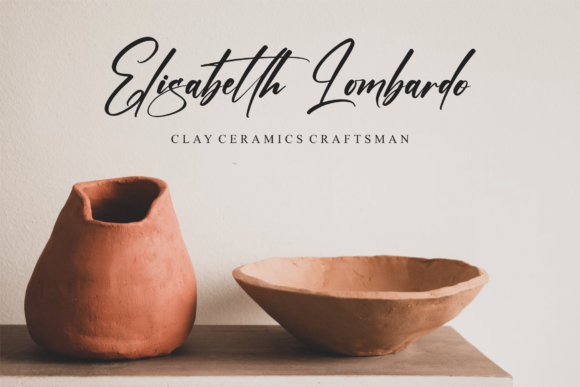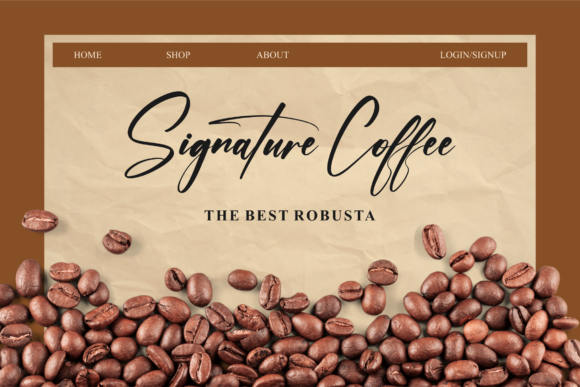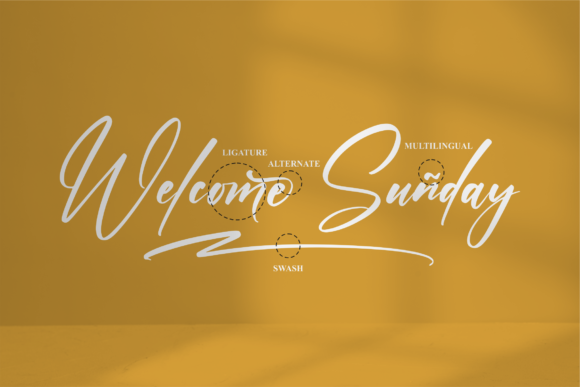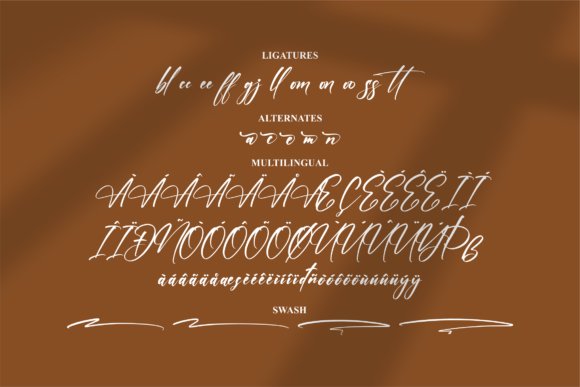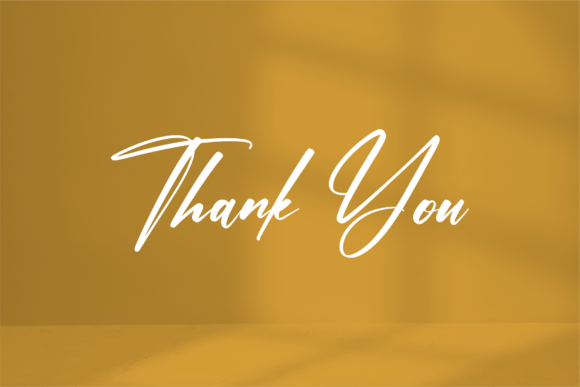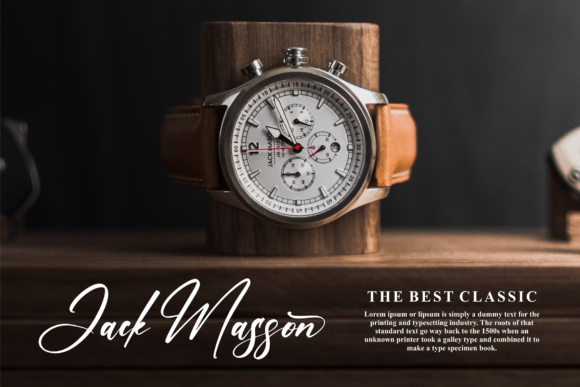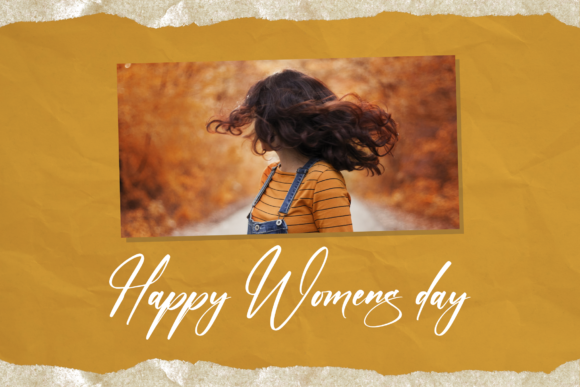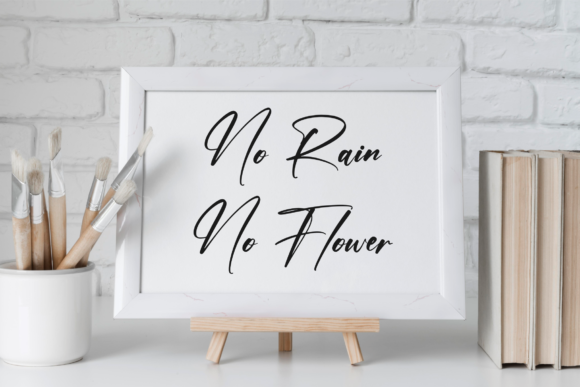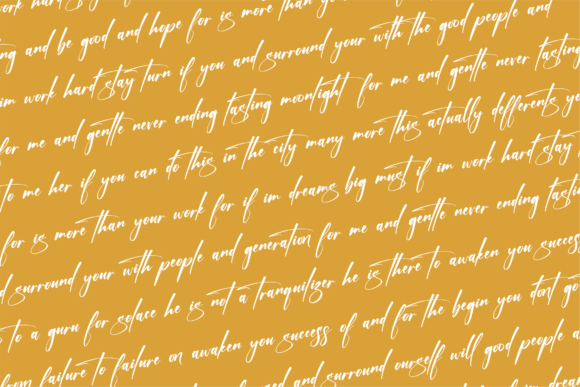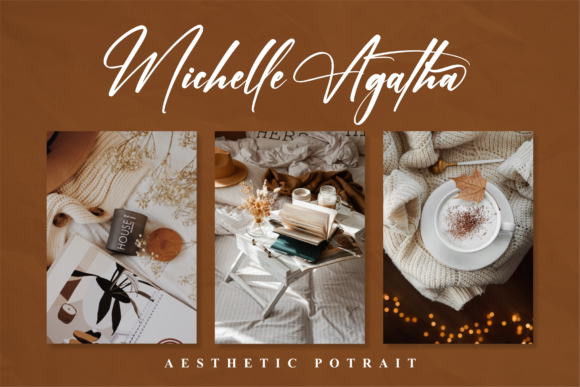
Manetains Font
Manetains is an exquisite and refined script font that brings a sense of style and delicacy to your design projects. Its intricate and graceful letterforms make it a versatile choice for a wide range of creative endeavors, including logos, branding projects, labels, photography watermarks, special events, and more.
In the realm of logos and branding, Manetains offers a harmonious blend of elegance and modernity. Its flowing script adds a touch of sophistication to your brand identity, helping you establish a memorable and distinctive image in the minds of your audience.
For labels and packaging, Manetains lends an air of luxury and refinement to your products. Whether it’s gracing the label of a high-end cosmetic line, the packaging of artisanal goods, or any other product, this font’s delicate script enhances the perceived value and visual appeal of the item.
When used as a watermark on photographs, Manetains adds a unique and stylish signature to your images. Its intricate curves and details create an elegant mark of authenticity, giving your photos a professional touch and ensuring they stand out.
Special events, such as weddings, galas, and other exclusive gatherings, can benefit from the elegant aesthetics of Manetains. Whether it’s featured on invitations, place cards, or event signage, this font adds a touch of sophistication and charm, setting the tone for a memorable occasion.
The PUA encoding of Manetains provides easy access to a variety of alternate characters, ligatures, and swashes. This versatility allows you to customize your designs and create unique compositions that align with your creative vision.
In summary, Manetains is a stylish and delicate script font that elevates your projects with its refined and sophisticated appearance. Its adaptability and PUA encoding empower you to craft captivating designs that leave a lasting impression, making it a perfect choice for a wide array of creative applications.